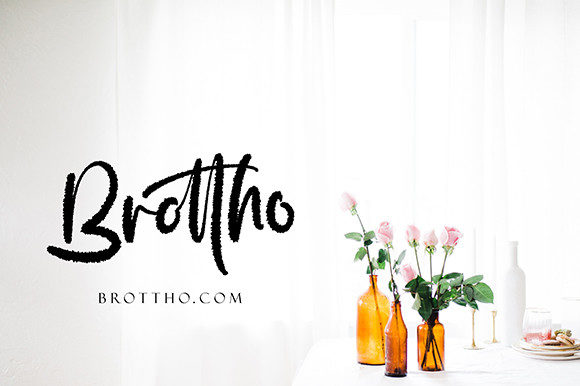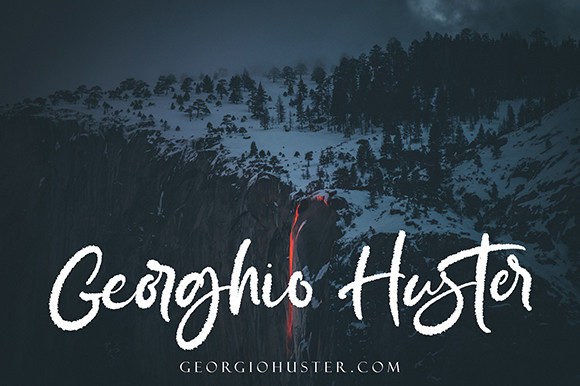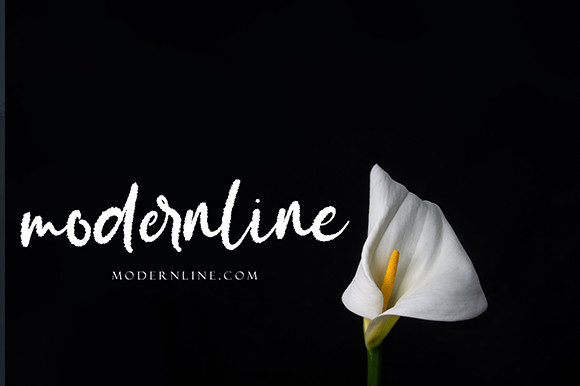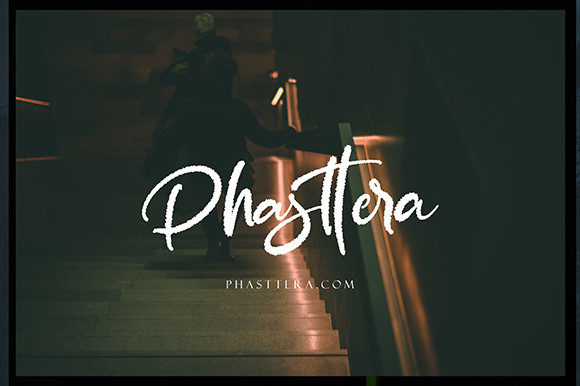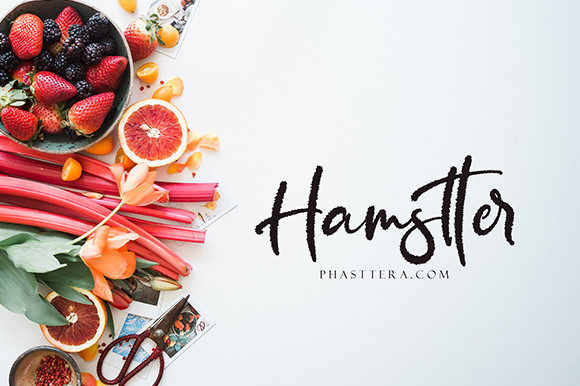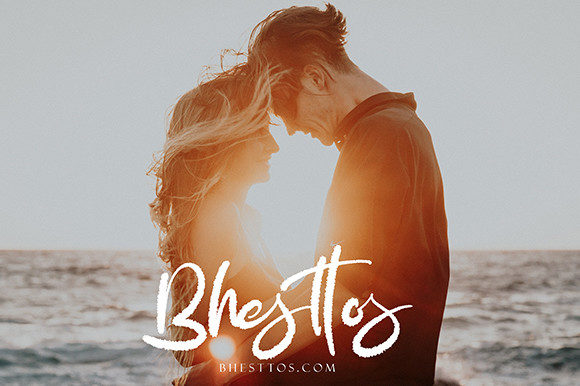
Introduction to Seritton Font
Do you remember that moment when you finally found the perfect design element for your project? The one that took it from good to great? For many of us, that moment is a rush of excitement and a sense of accomplishment. And that’s exactly what we’re here to talk about – the Seritton Font, a stunning, hand-painted brush script that’s about to take your creative projects to the next level.
With its high-quality design and transparent background, Seritton Font is the perfect resource for any designer looking to add a touch of elegance and sophistication to their work. Whether you’re working on a logo, a brochure, or a website, this beautiful font is sure to make a lasting impression. And the best part? It’s available for free download, making it an invaluable addition to any design arsenal.
- High-quality font design with a transparent background, making it ideal for creative projects that require a clean and minimalist aesthetic.
- Designed with a unique blend of modern and vintage elements, the Seritton Font is perfect for those looking to add a touch of sophistication to their creative project.
- Perfect for use in various design projects, including logos, branding, typography, and creative visual content.
Honest Review: Seritton Font
I recently had the opportunity to work with the Seritton Font, and I must say, it’s been a game-changer for my creative project. The high quality of this font is undeniable, and it’s quickly become a go-to design resource for me.
Here are some things that work well with the Seritton Font:
- Its versatility – I’ve used it for both headings and body text with great success.
- Its clean and modern design – it’s perfect for creating a sleek and professional look.
- Its transparent background – this has been a huge time-saver for me, as I no longer have to worry about manually creating transparent backgrounds.
One thing to be aware of is that the Seritton Font may not be suitable for all types of projects. For example, it may not be the best choice for projects that require a lot of bold or dramatic typography.
Overall, I’m extremely impressed with the Seritton Font, and I would highly recommend it to anyone looking for a high-quality, free design resource. It’s a must-have for any designer’s toolkit! ⚠️ However, it does have its limitations, so be sure to consider your project’s specific needs before using it.
Tips for Getting the Most Out of Seritton Font
Use Seritton Font as a design resource for your next creative project. Experiment with different font sizes, colors, and styles to create a unique and eye-catching design. You can also use it in combination with other fonts to create a high-quality and professional-looking design.
Seritton Font is perfect for designing logos, business cards, brochures, and other marketing materials. It’s also great for creating social media graphics, presentations, and reports. With its high-quality design and transparent background, Seritton Font is a valuable design resource for any creative project.